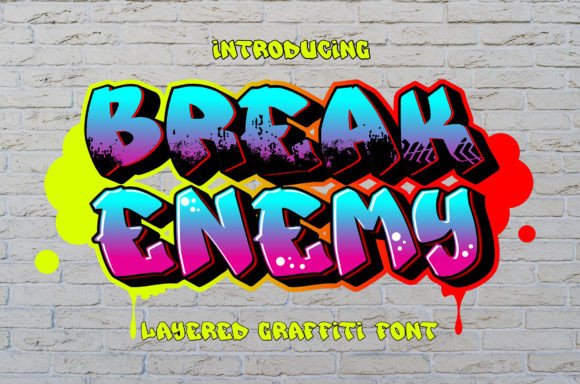
Unleash Your Creativity with Break Enemy Font
Have you ever been in the middle of a design project, and suddenly, you’re stuck on finding the perfect font? I recall a recent experience where I was working on a music poster design, and I just couldn’t find a font that captured the edgy, urban vibe I was going for. That’s when I stumbled upon the Break Enemy font, and it completely transformed my design. In this article, we’ll dive into the world of Break Enemy, an urban graffiti font that’s perfect for adding a touch of attitude to your projects.
What Makes Break Enemy Special?
Break Enemy is an urban graffiti font characterized by sharp edges and a bold look. Its unique style makes it the perfect choice for street style or urban graffiti themes. Whether you want to create a strong and powerful statement or simply add a touch of attitude to your designs, Break Enemy is the font for you.
An Honest Review of Break Enemy
So, what do I love about Break Enemy? Here are a few things that make it stand out:
- ✨ Unique and edgy design: Break Enemy’s sharp edges and bold look make it perfect for urban-themed designs.
- ✅ Highly versatile: This font can be used for a wide range of projects, from music posters to apparel designs.
- 💯 Easy to read: Despite its bold and edgy design, Break Enemy is surprisingly easy to read, even at smaller font sizes.
Now, let’s talk about some small quirks or limitations:
- 🤔 Limited use cases for formal designs: Break Enemy’s edgy design may not be suitable for formal or professional designs.
- ⚠️ May not work well with smaller font sizes: While Break Enemy is easy to read, it may not work well with very small font sizes, as the details may get lost.
- Take advantage of OpenType features, such as glyphs and stylistic alternates, to add more variety to your design.
One of the best things about Break Enemy is its support for OpenType features and glyphs. Here are a few examples:
- Stylistic alternates: Break Enemy offers stylistic alternates that allow you to switch between different font styles.
- Glyphs: The font includes a range of glyphs that you can use to add more variety to your design.
The Backstory of Break Enemy
Break Enemy was inspired by the urban graffiti scene, where artists use bold and edgy designs to express themselves. The font’s creator wanted to capture the essence of this scene and bring it to designers and artists around the world.
- Q: What type of designs is Break Enemy best suited for?
- A: Break Enemy is perfect for urban-themed designs, such as music posters, apparel designs, and streetwear.
- Q: Is Break Enemy easy to read?
- A: Yes, Break Enemy is surprisingly easy to read, even at smaller font sizes.
- Q: Can I use Break Enemy with other fonts?
- A: Yes, Break Enemy can be paired with other fonts to create a unique and interesting design.